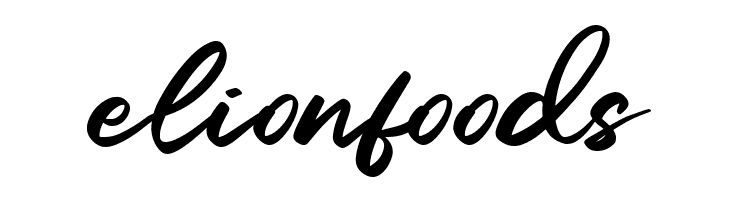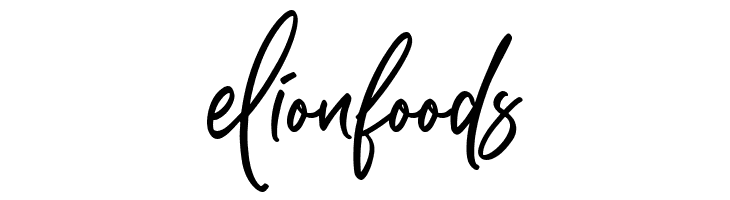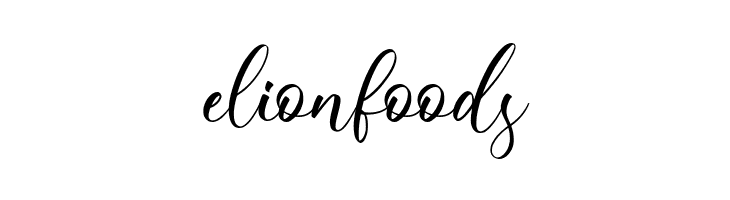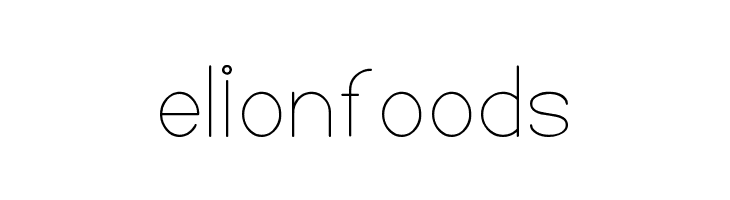
• High Sky
A modern, cursive font with bold strokes and elegant connections.
• High Thin LIGHT
A modern, thin-line font with a minimalist and elegant style.
• Higher Style
A dynamic handwritten font with fluid, elongated strokes and a personal touch.
• Highes Signature
A sophisticated, elegant handwritten font with fluid strokes and a natural flow.
• HighLines
A bold, hand-drawn font with textured, sketch-like hatching.
• Historis
An elegant and flowing script font with ornate letterforms and graceful curves.
• HOCUS FOCUS Bold
• HoffmanFL
A classic serif font with elegant lines and high contrast, ideal for formal and modern uses.
• HoganMania
A bold, jagged font with dynamic strokes and a graffiti-like style.